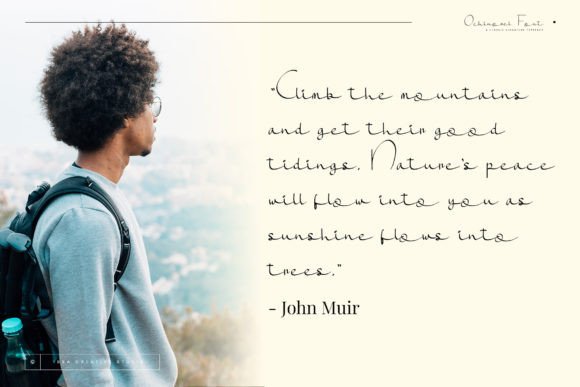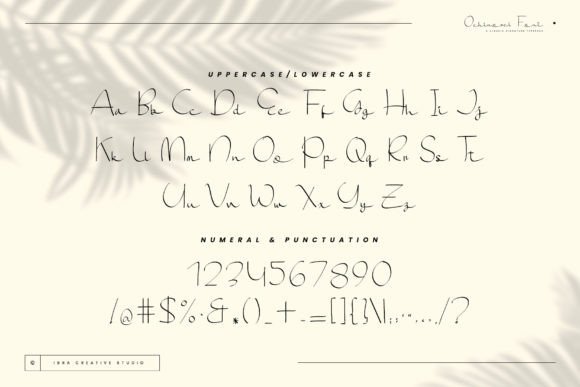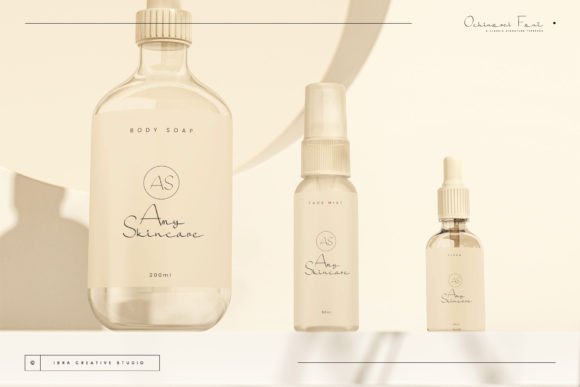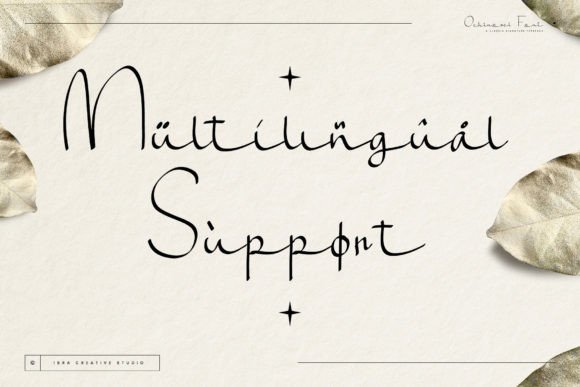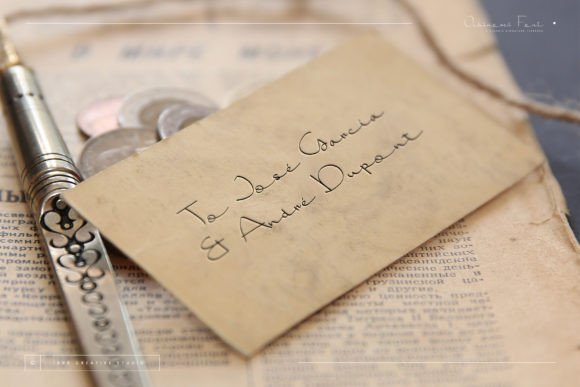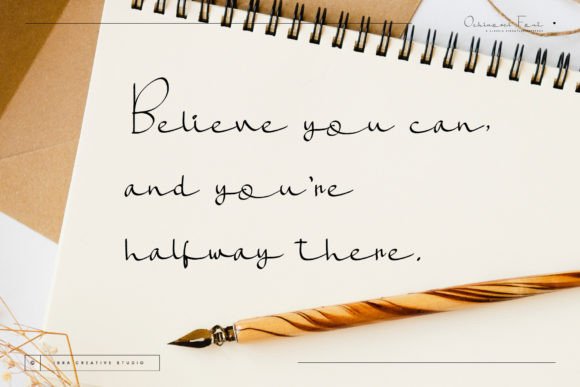
Introduction to Ochinorel Font
As designers, we’ve all been there – staring at a blank page, trying to find the perfect font to convey the essence of our creative project. For some, it’s a moment of serendipity, where the right font appears like magic. For others, it’s a labor of love, where hours are spent searching for the perfect combination of style and sophistication. But what if we told you there’s a font that effortlessly strikes a balance between traditional charm and contemporary design?
Enter the Ochinorel Font, a high-quality typeface that exudes timeless elegance and sophistication. Its beautifully crafted letterforms boast a sense of fluidity and hand-crafted authenticity, reminiscent of a bespoke signature. This exceptional design resource is a must-have for any designer looking to add a touch of refinement to their invitations, logos, and branding materials.
Honest Review: Ochinorel Font
I recently stumbled upon the Ochinorel Font and I must say it’s a fantastic addition to any designer’s arsenal. This free download is perfect for designers working on creative projects that require a touch of elegance and sophistication.
What works well: ✨ The font’s high quality is immediately apparent, with crisp lines and smooth edges that make it perfect for both digital and print applications. The transparent background also allows for seamless integration with various design elements. I’ve used it for a logo redesign and the results were stunning.
However, I do have to mention a few limitations: ⚠️ The font family is quite limited, with only a few styles to choose from. Additionally, some users may find the font too elegant or sophisticated for certain projects. But overall, these are minor complaints.
Overall, I’m thoroughly impressed with the Ochinorel Font. It’s a fantastic design resource that I’ll be using for future projects. I highly recommend it to designers looking for a high-quality, free font to add some sophistication to their work.
Use the Ochinorel Font in conjunction with a transparent background for a high-quality design. Experiment with different font sizes and styles to add creativity to your project. This font is a valuable design resource for any creative project.
Common Use Cases for Ochinorel Font
The Ochinorel Font is ideal for use in logos, business cards, and other design elements where a high-quality, free download font is required. Its transparent background makes it easy to use in any design project.